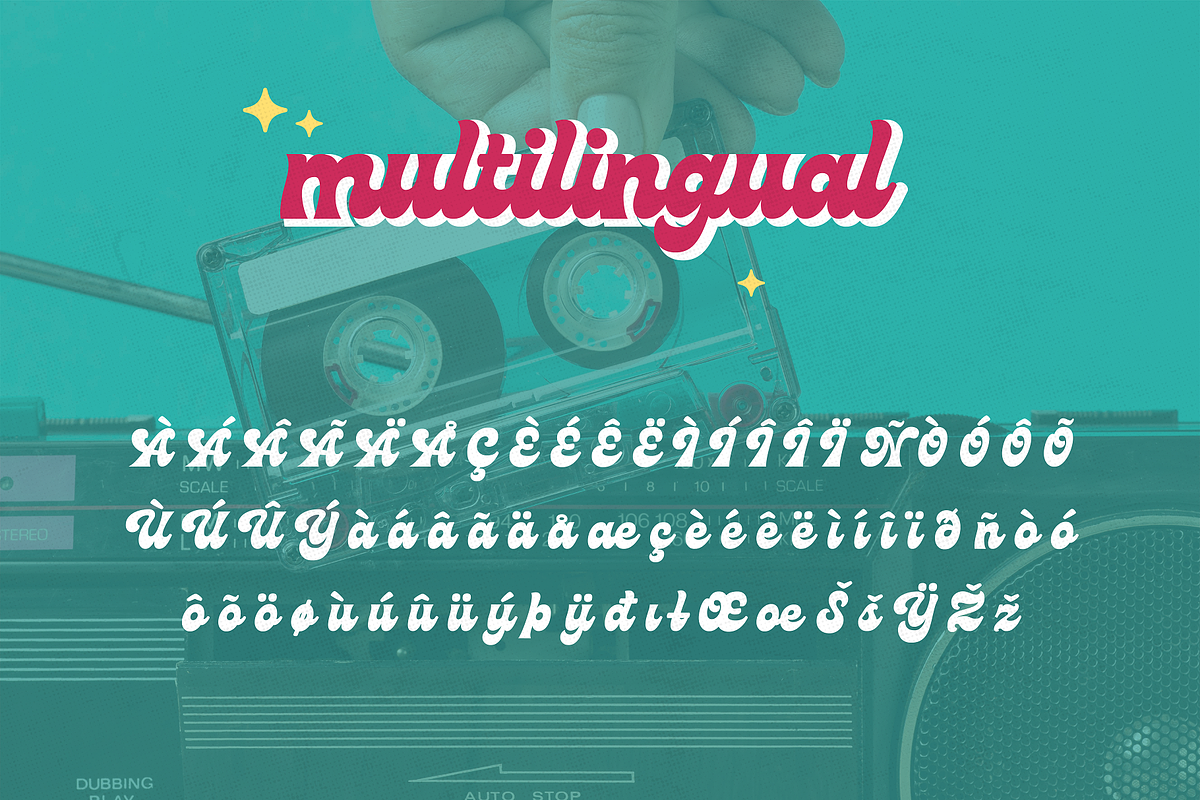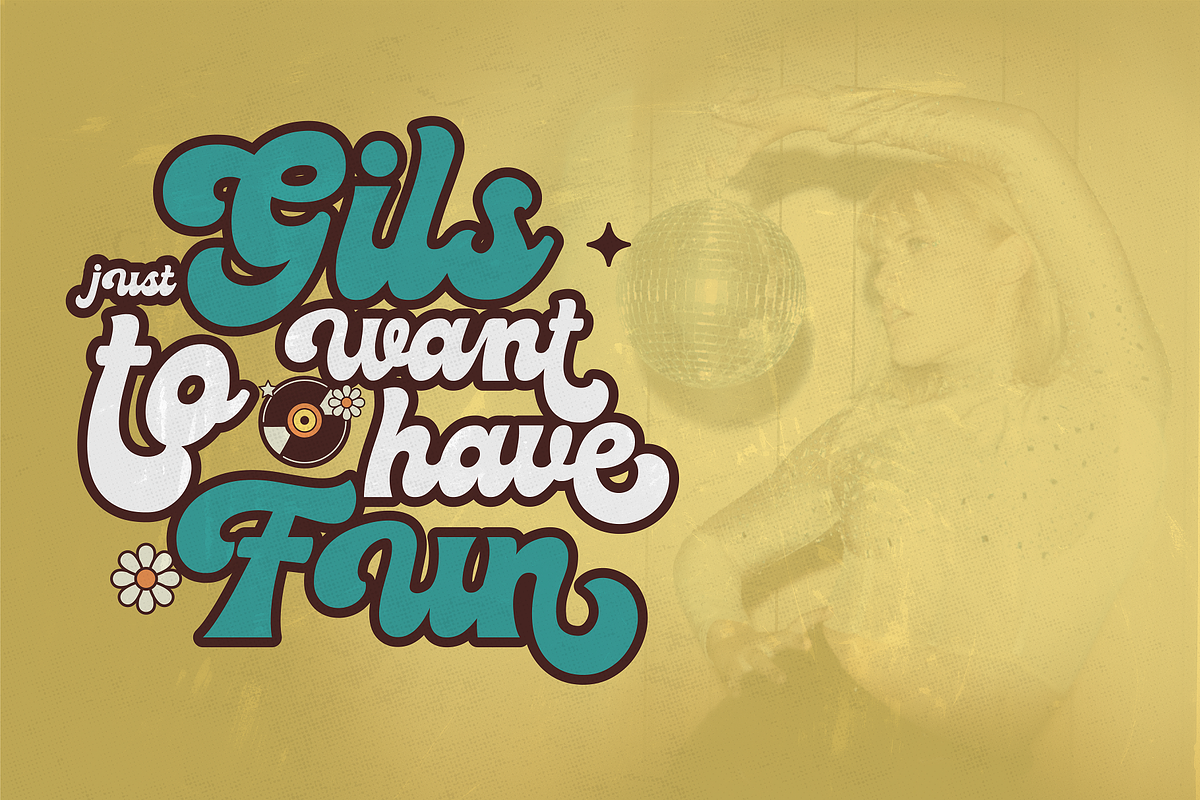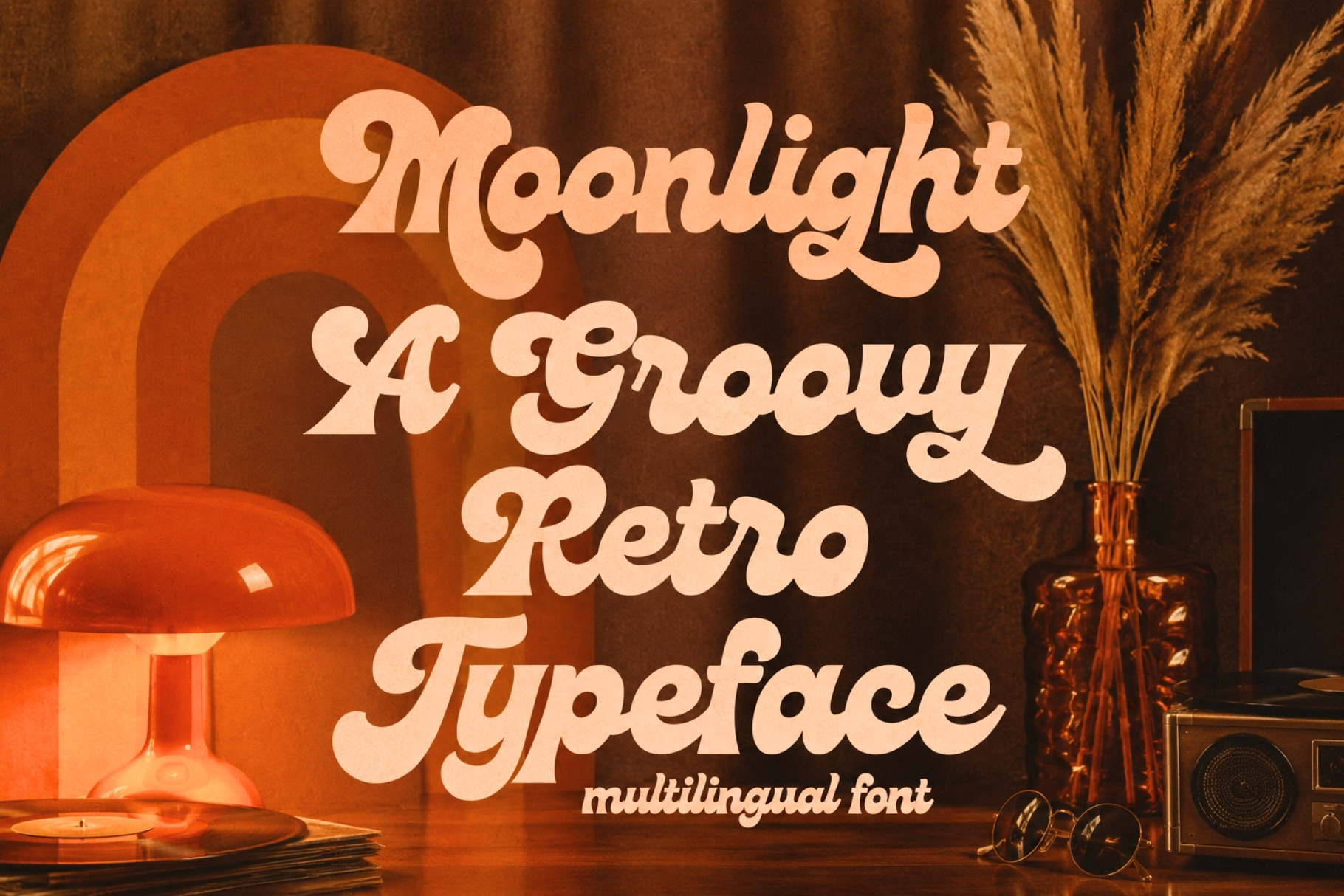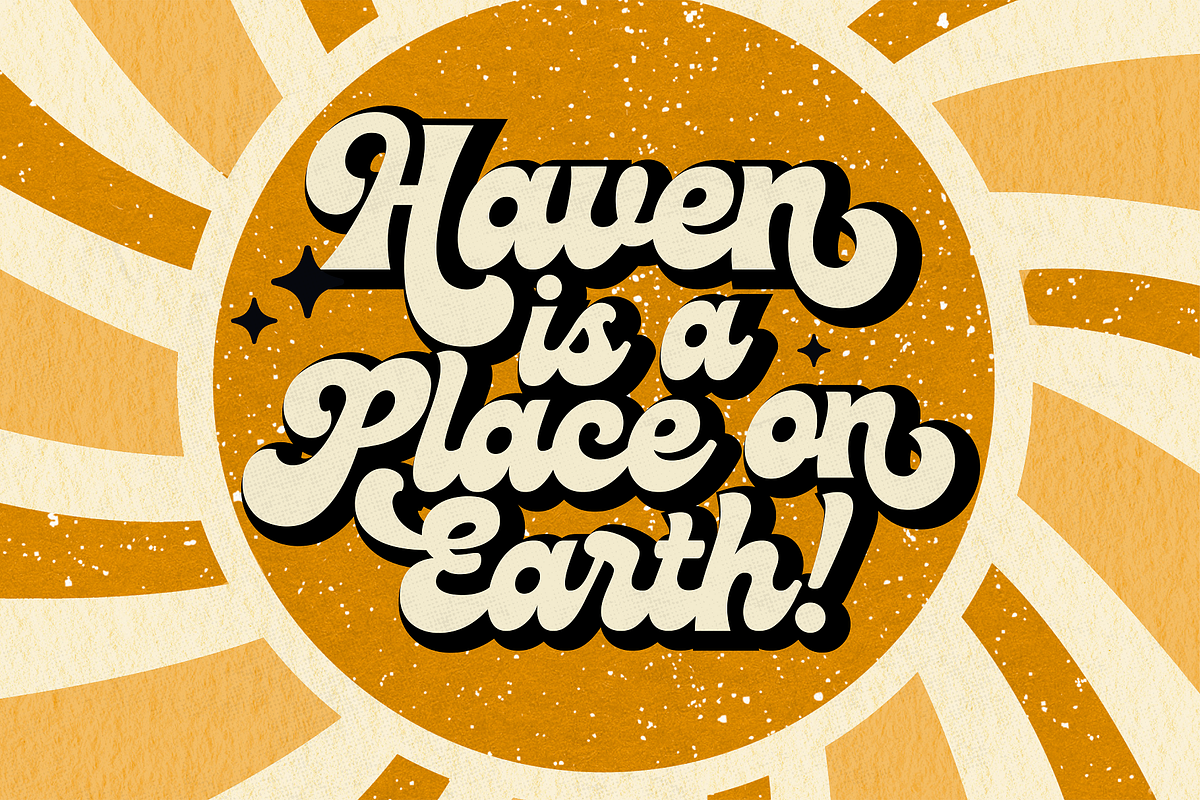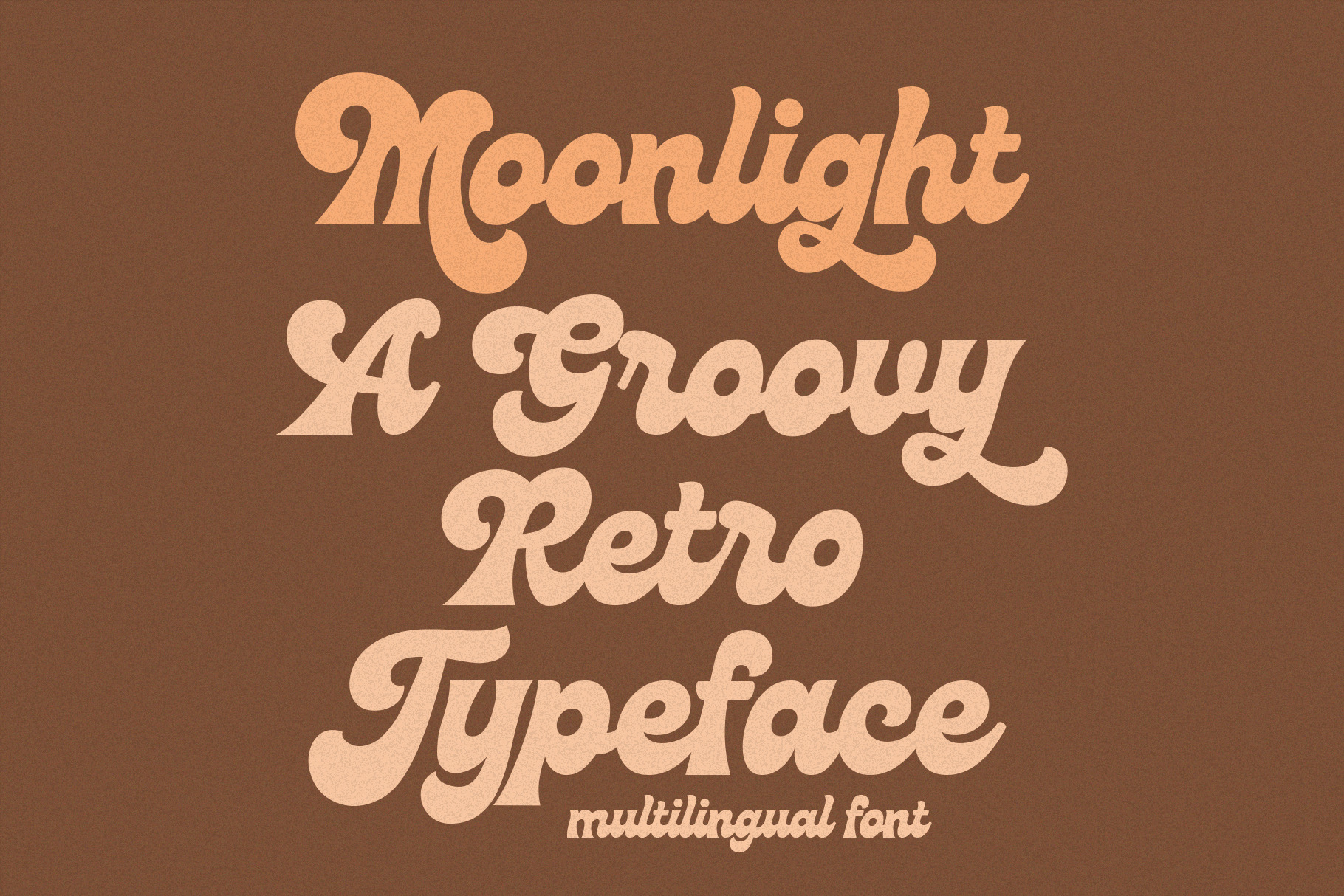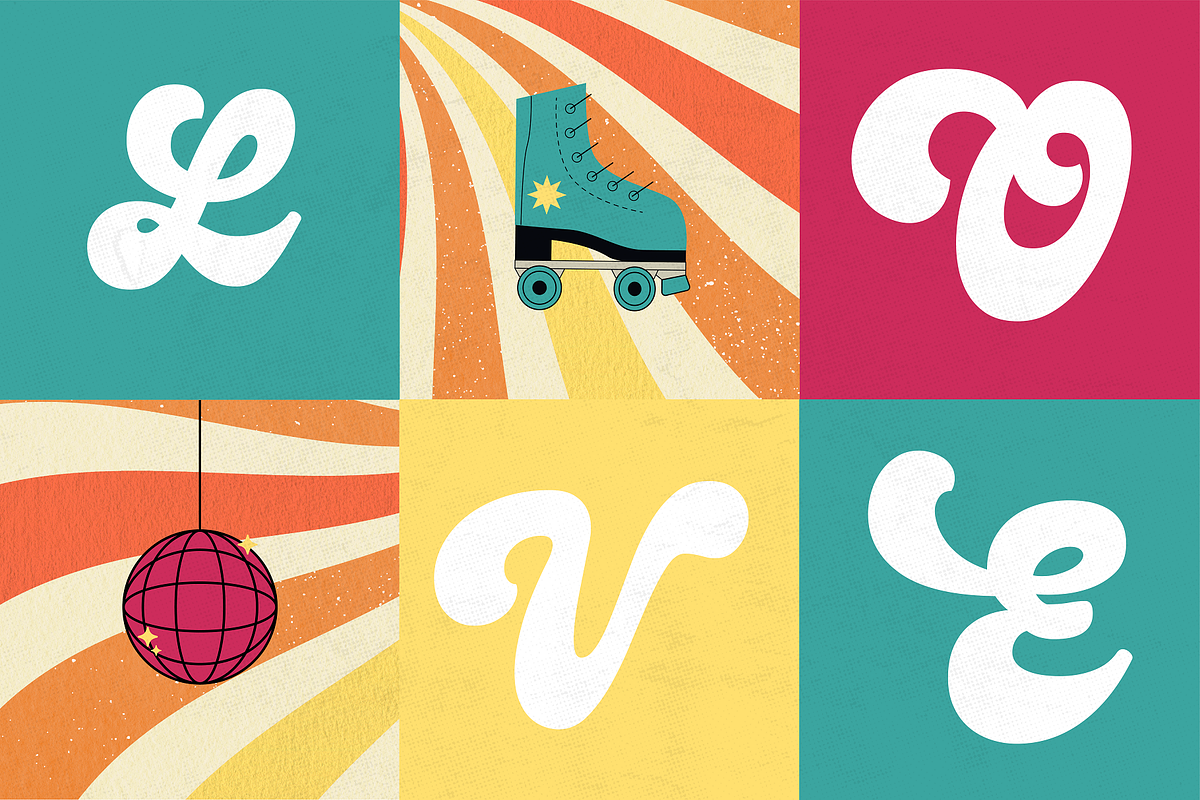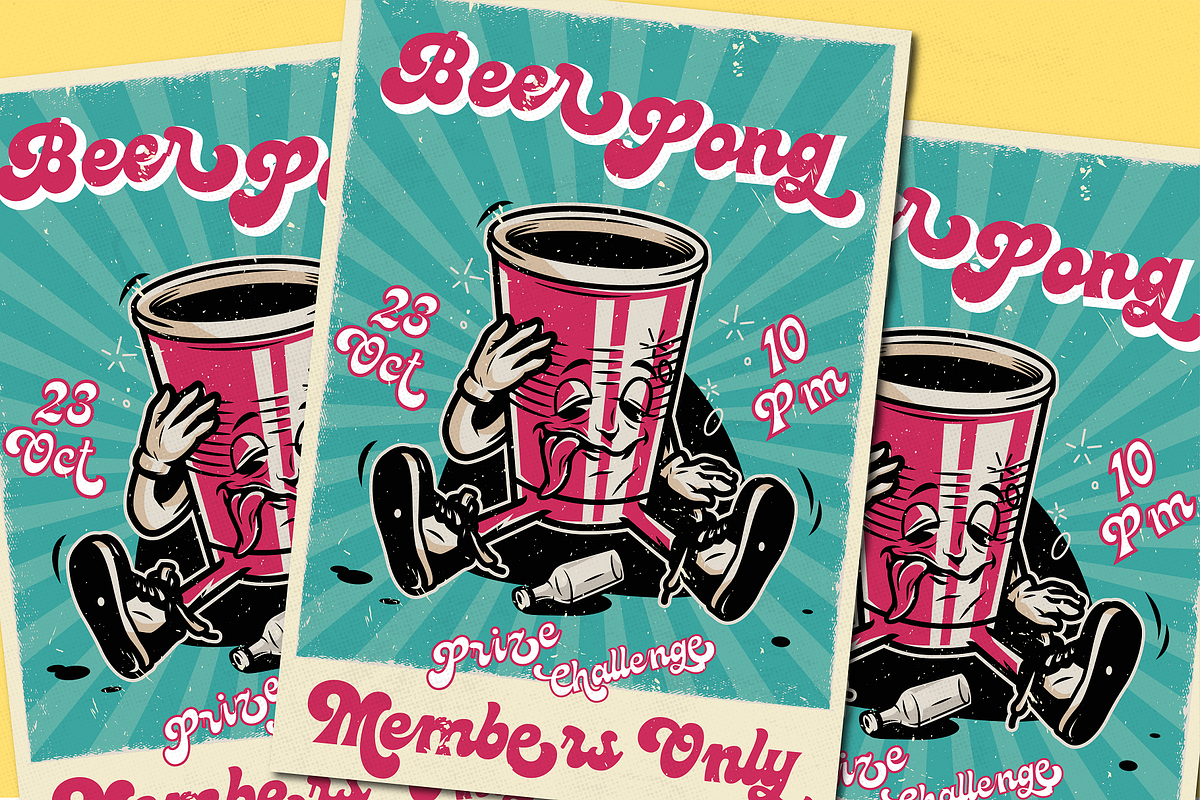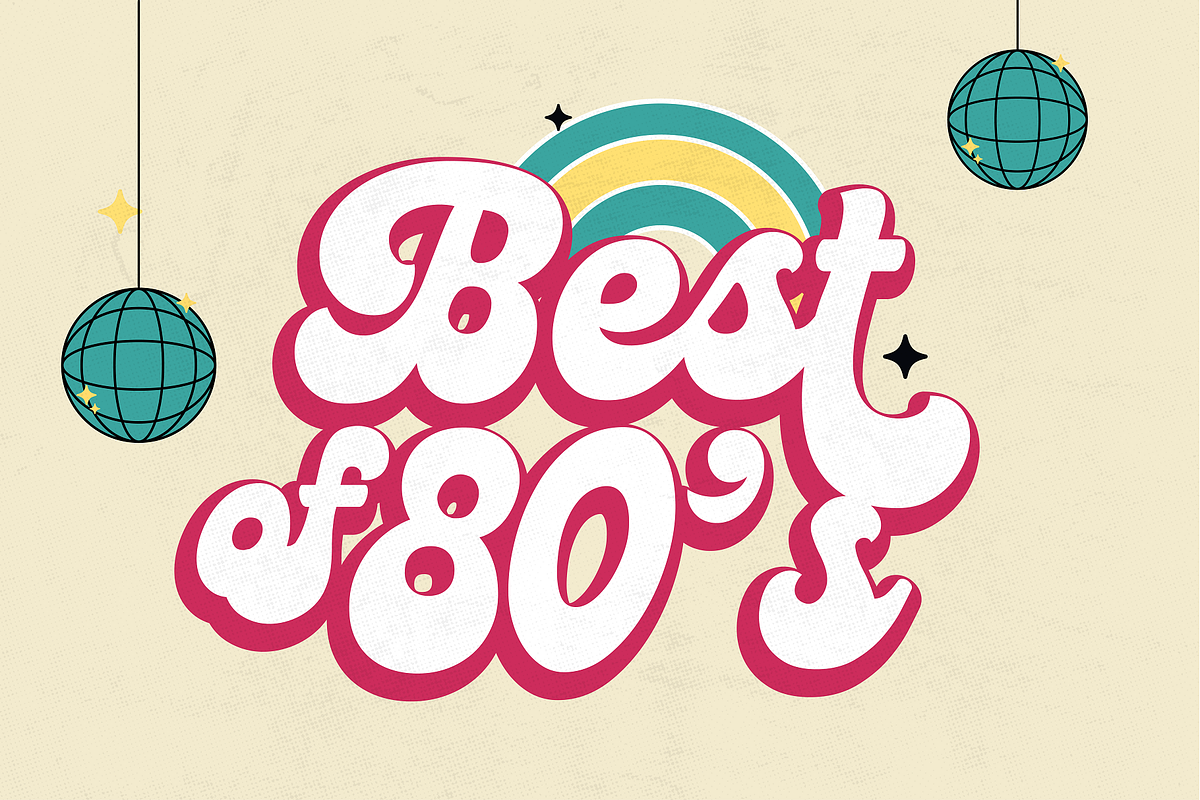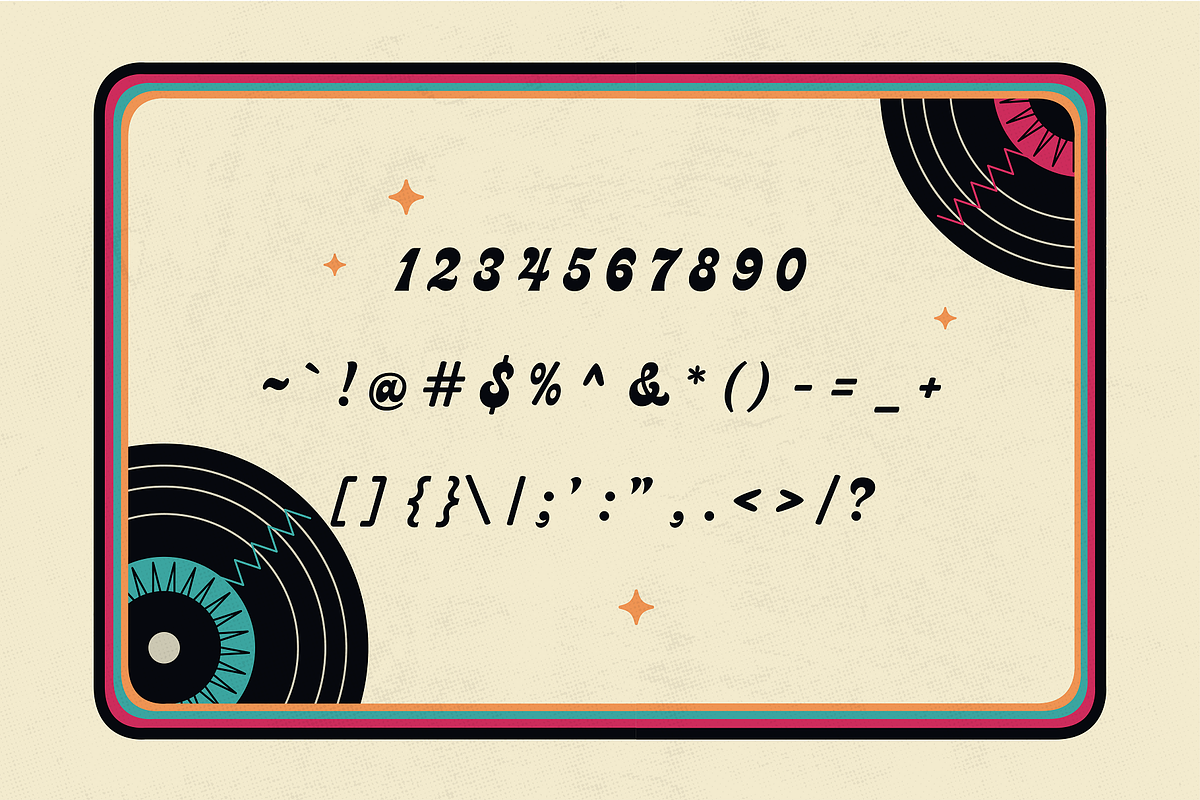
Moonlight - Groovy Disco Typeface
Introducing a new retro script called Moonlight! Inspired by the groovy disco era of the 1970's, Moonlight's script lettering keeps the connections between letters smooth and flowing. This font is multilingual and has tons of gorgeous ligatures ready to spice up your designs.
uppercase & lowercase
numbers and punctuation
multilingual
ligatures
alternates